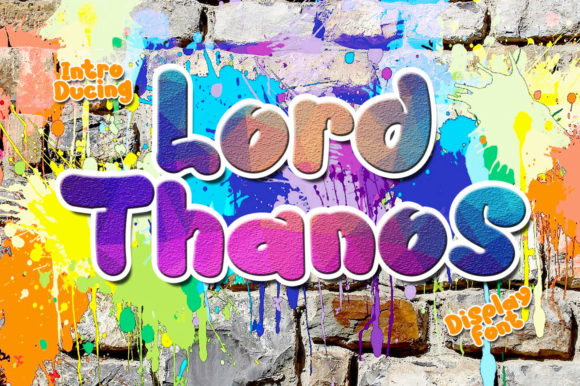
Embark on a Typographic Adventure with Lord Thanos, the Font of Festive Enchantment
Unleash the magic of Lord Thanos, a captivating display font that conjures a world of enchantment, wonder, and Halloween delight. Inspired by the whimsical spirit of childhood, this font captivates with its jovial curves, playful energy, and an irresistibly bubbly charm, making it the perfect choice for designers seeking to ignite joy and creativity in their projects.
Transport yourself to a realm of fantasy and fun, where Lord Thanos weaves its enchanting spell. Its distinctive letterforms dance and twirl like mischievous sprites, evoking a sense of pure delight and boundless imagination. Each character brims with personality, adding a touch of whimsy and playfulness to your designs.
With Lord Thanos as your artistic companion, you'll unlock a treasure trove of creative possibilities. Picture enchanting children's books adorned with Lord Thanos' playful charm, captivating logos that spark curiosity and joy, and eye-catching social media graphics that radiate vibrancy. Let your imagination run wild as you craft designs that capture the hearts of your audience.
Dive into a world where colors come alive, and typography takes center stage. Lord Thanos thrives in the company of vibrant hues, its bubbly curves and cheerful demeanor forming a harmonious symphony of visual delight. Imagine the magic of Halloween posters exploding with color, invitations bursting with merriment, and website designs that transport visitors to a realm of pure joy.
Indulge in the artistry of Lord Thanos, a font crafted with meticulous attention to detail. Each stroke and curve has been carefully designed to evoke a sense of wonder and enchantment. Its generous proportions and playful personality make it highly legible, ensuring that your message shines through with clarity and charm.
Join the ranks of creative visionaries who have discovered the magic of Lord Thanos. Let your imagination soar as you craft designs that captivate and inspire. Embrace the spirit of playfulness and infuse your projects with an unforgettable touch of whimsy.